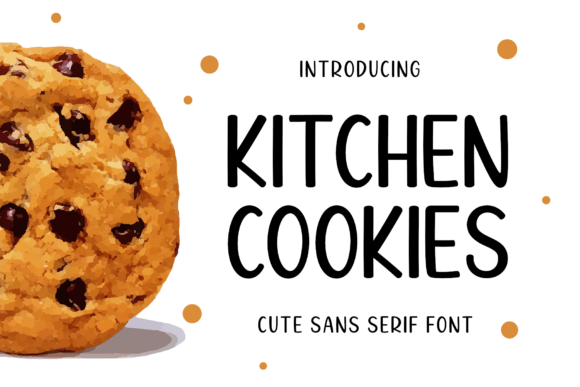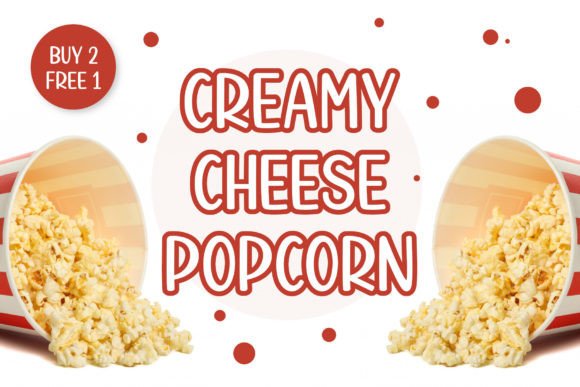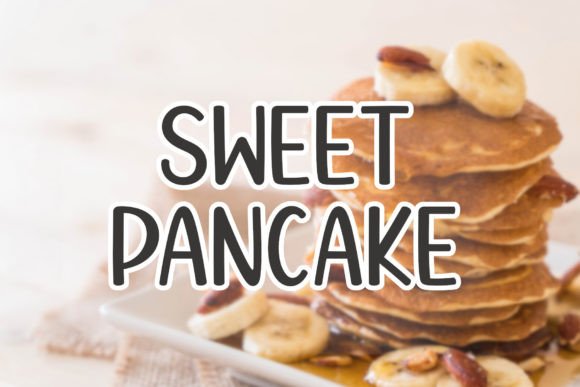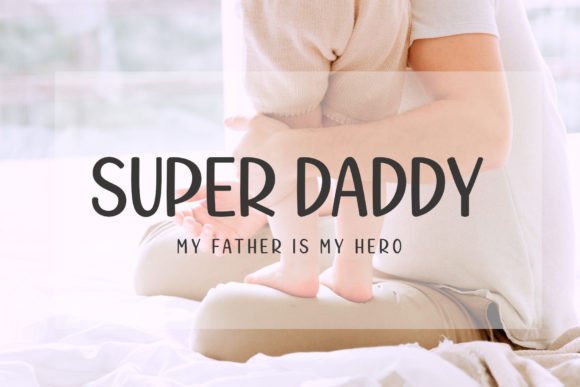
Kitchen Cookies Font: A Playful Sans Serif for Cute DIY Projects!
About the Kitchen Cookies Font
Add a touch of class to your work with the Kitchen Cookies Font, a truly exceptional typeface. Kitchen Cookies is a sans serif font with a cute and quirky shape.
This font is suitable for use in several of your design projects such as posters, birthday cards, t-shirt designs, mugs, and tote bags, and can be used for various handmade creations.
Its playful, rounded forms make Kitchen Cookies ideal for projects requiring a friendly and approachable aesthetic. Excellent choices include children’s books, branding for bakeries or craft businesses, and packaging for sweet treats. Avoid using it for large blocks of body text or UI elements; its quirky nature can become distracting at smaller sizes or in continuous reading.
Pairing Kitchen Cookies works best with fonts that provide a sense of balance. A clean sans-serif like Open Sans would offer a sophisticated counterpoint, while a script font such as Great Vibes could add a touch of vintage charm. Consider using a more geometric sans-serif for a modern contrast.
The overall personality is undeniably cheerful and whimsical, lending itself well to projects that need to convey a sense of warmth and fun.
Kitchen Cookies Font Usage Examples
Kitchen Cookies Font Example